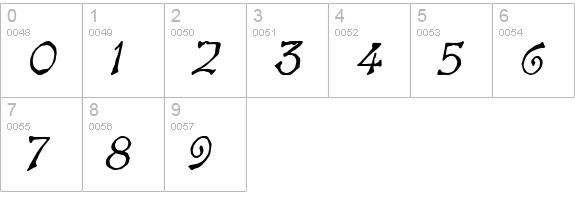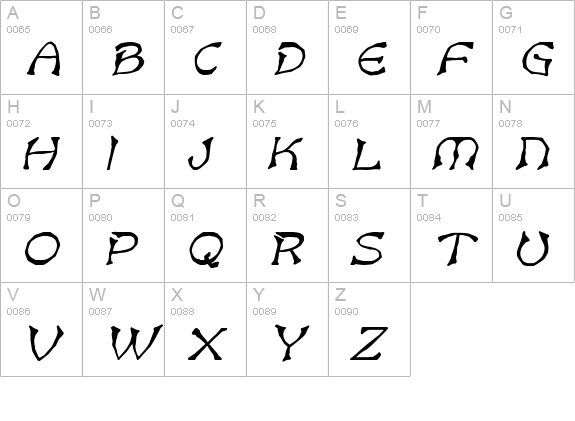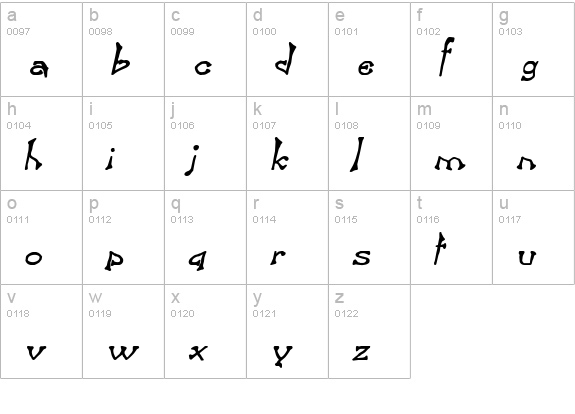
Introducing Bart BoldItalic font - a striking and versatile typeface that exudes confidence and modernity. The sleek and bold design of Bart BoldItalic makes it perfect for a wide range of projects, from branding to editorial design. Its italicized characters add a touch of elegance and sophistication to any text. What makes Bart BoldItalic even more appealing is that it is available for free download at FontsMarket.com. This means you can easily access this stylish font and use it in your projects without any cost. Whether you're a designer looking to add a touch of flair to your creations or a business owner seeking a standout font for your marketing materials, Bart BoldItalic is the perfect choice. Don't miss out on the opportunity to enhance your designs with Bart BoldItalic - download it for free today at FontsMarket.com and elevate your projects to the next level.